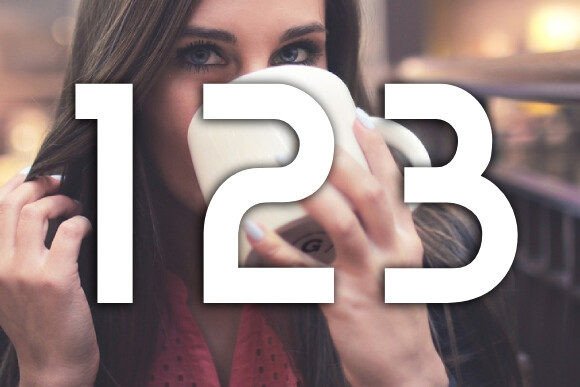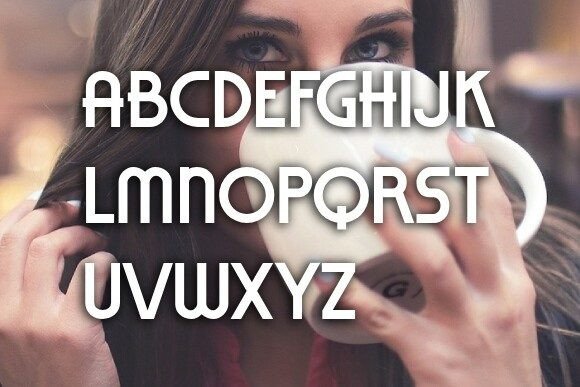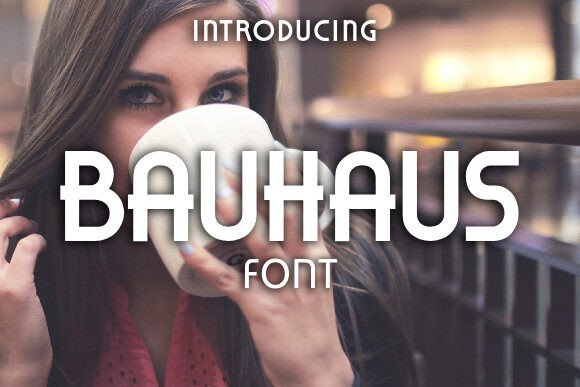
About the Bauhaus Font
We are excited to introduce Bauhaus Font, a must-have typeface for any serious designer. Bauhaus is a unique geometric font that works great with any design. Use it on t-shirts, mugs, and posters.